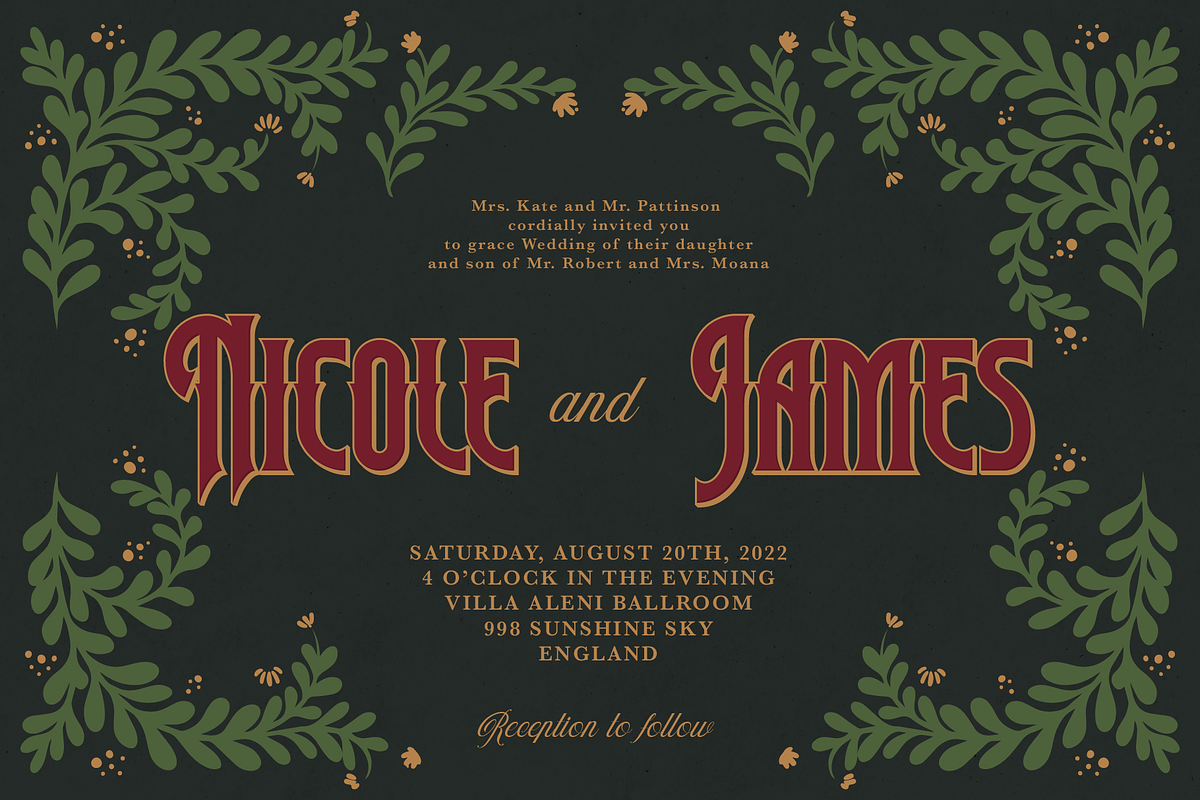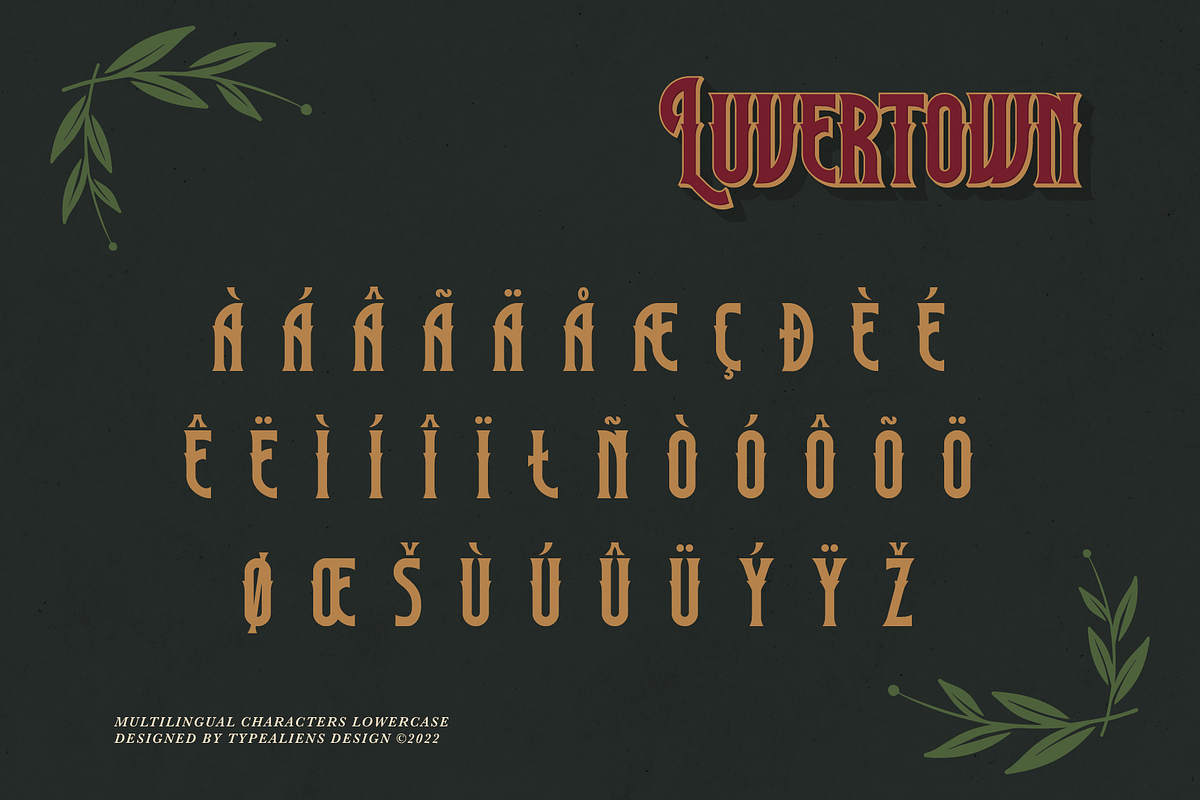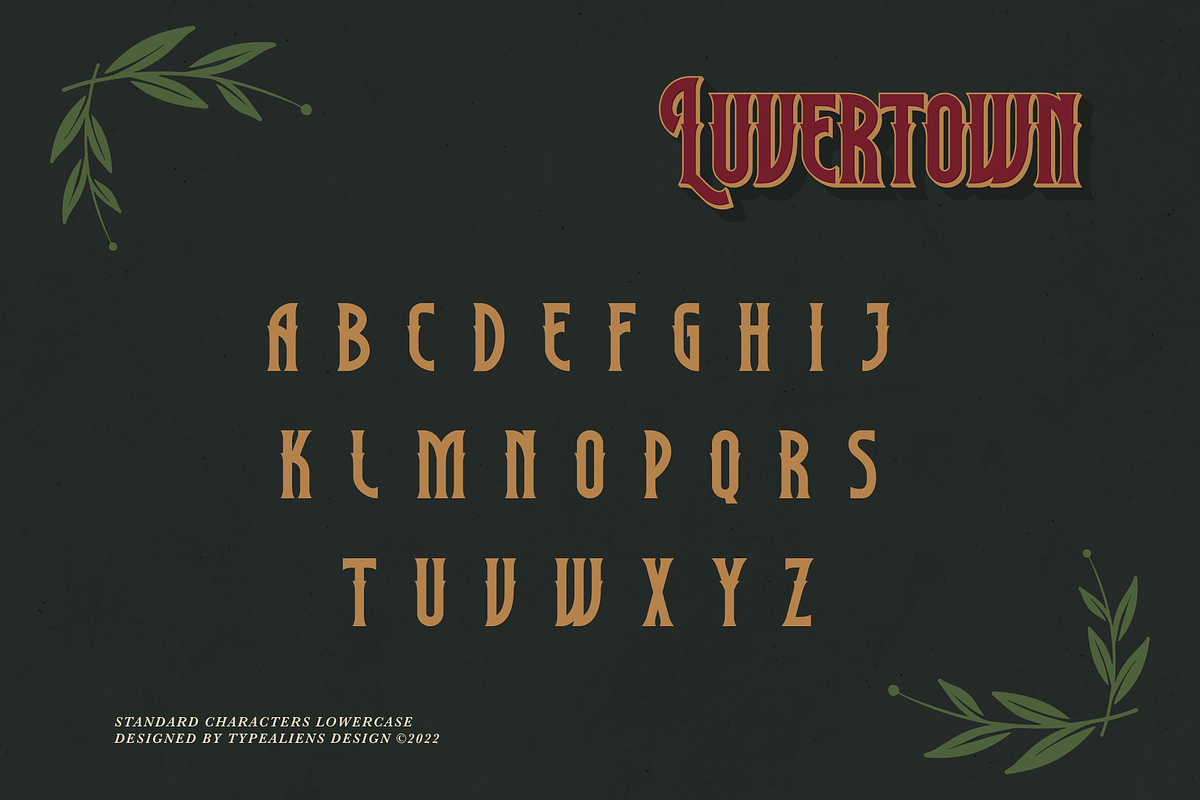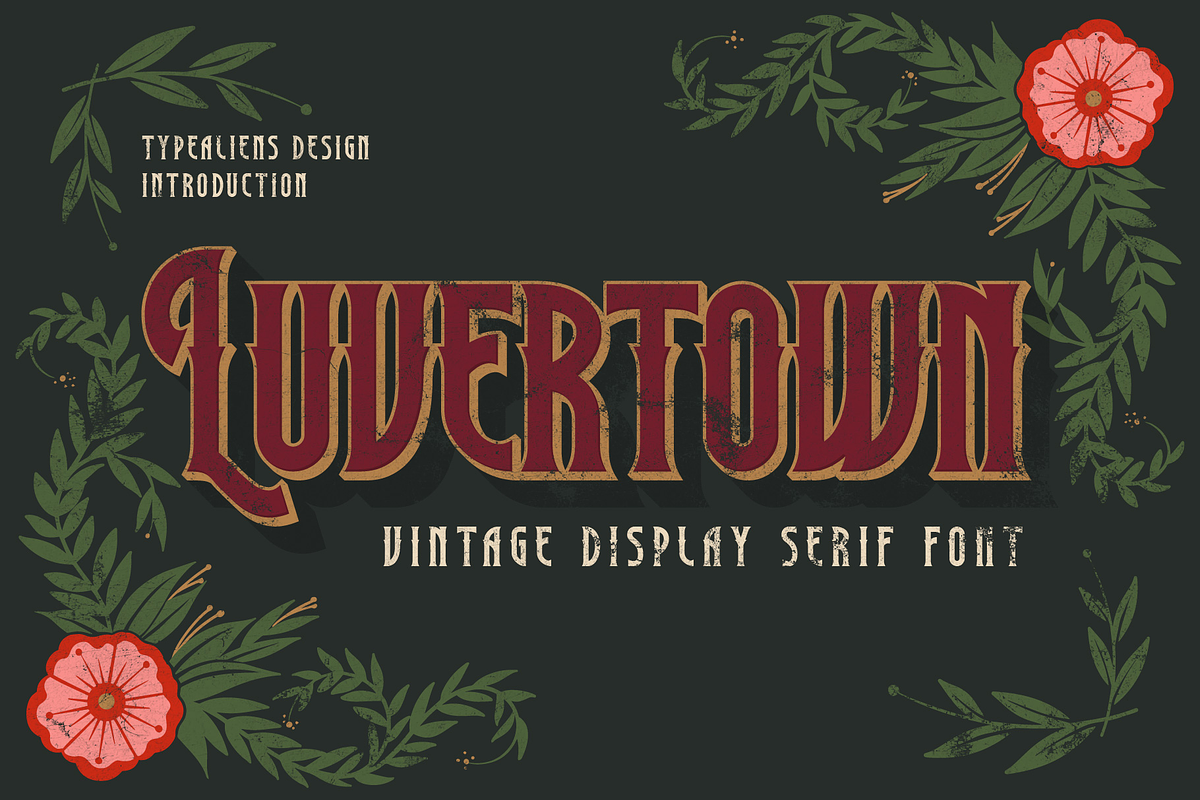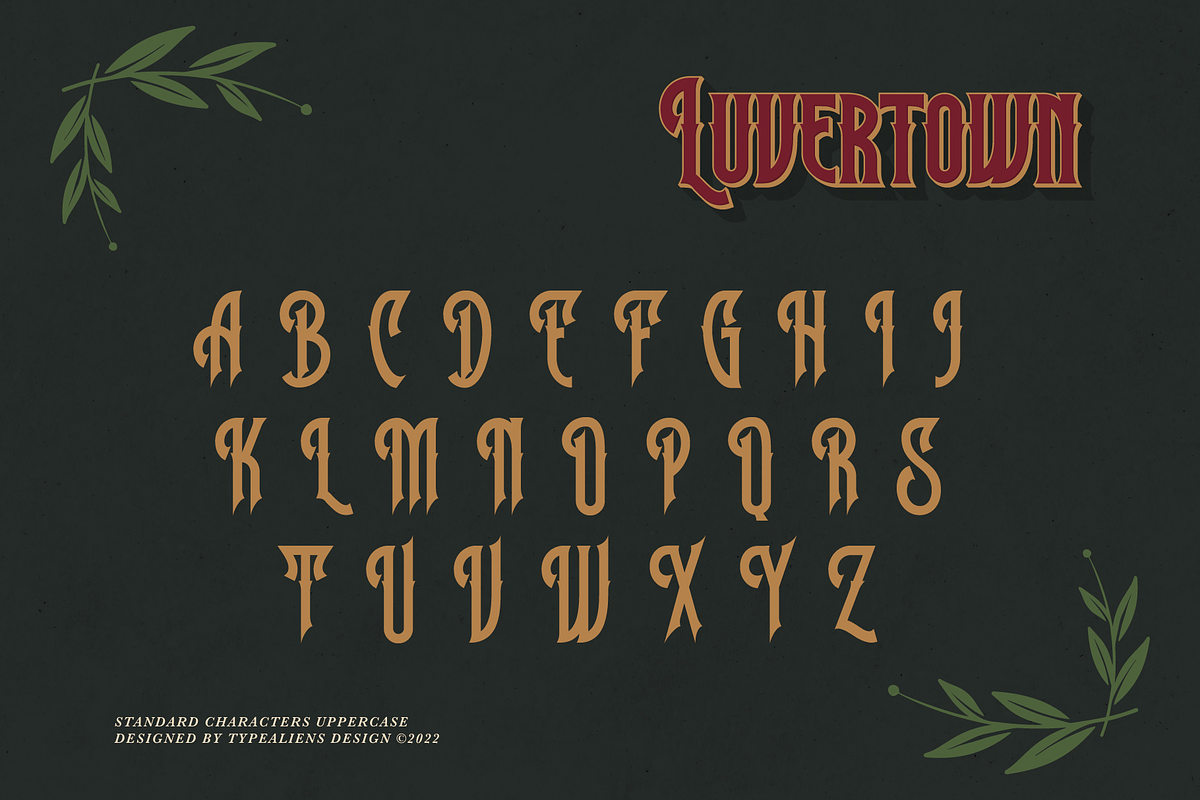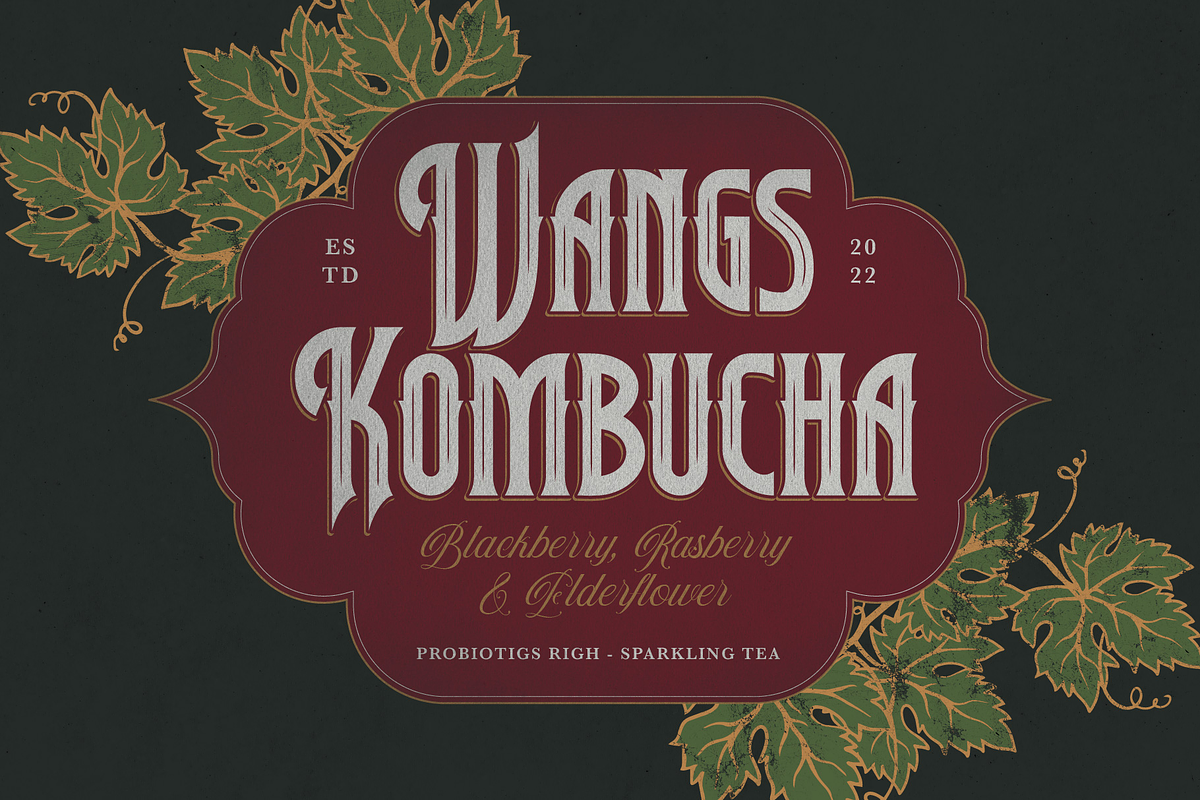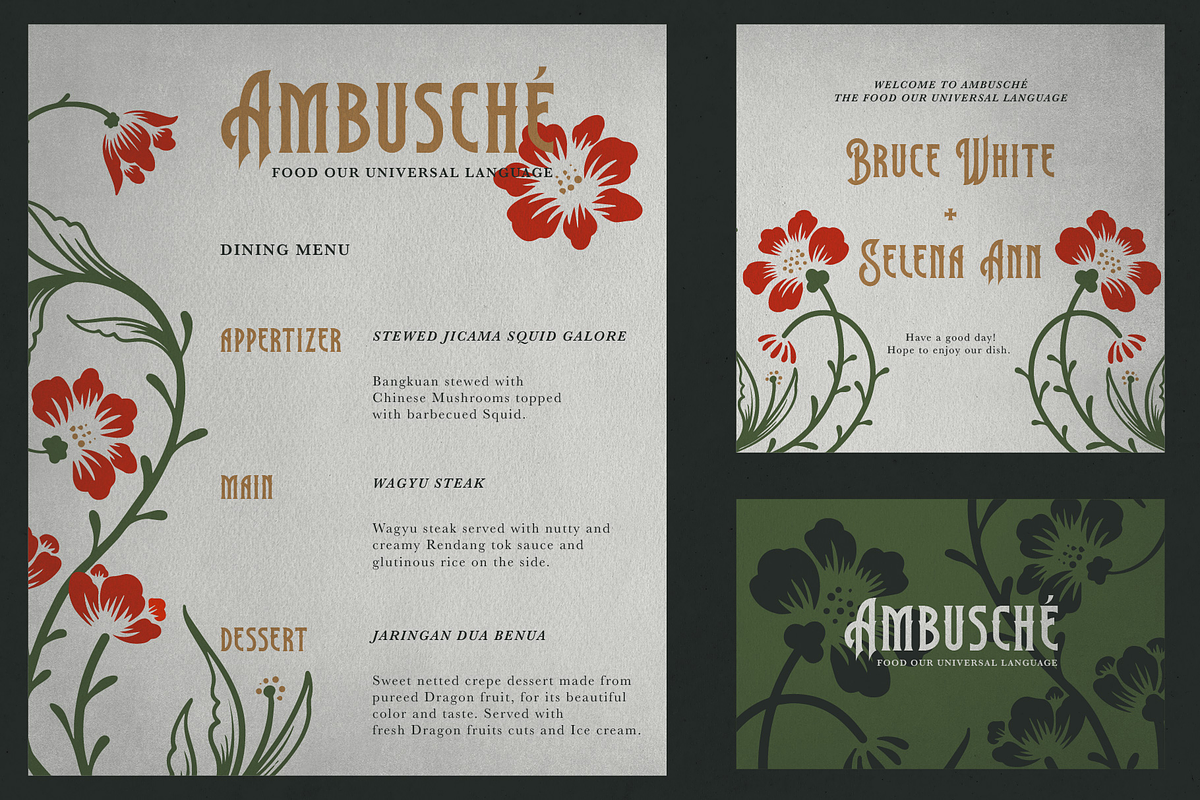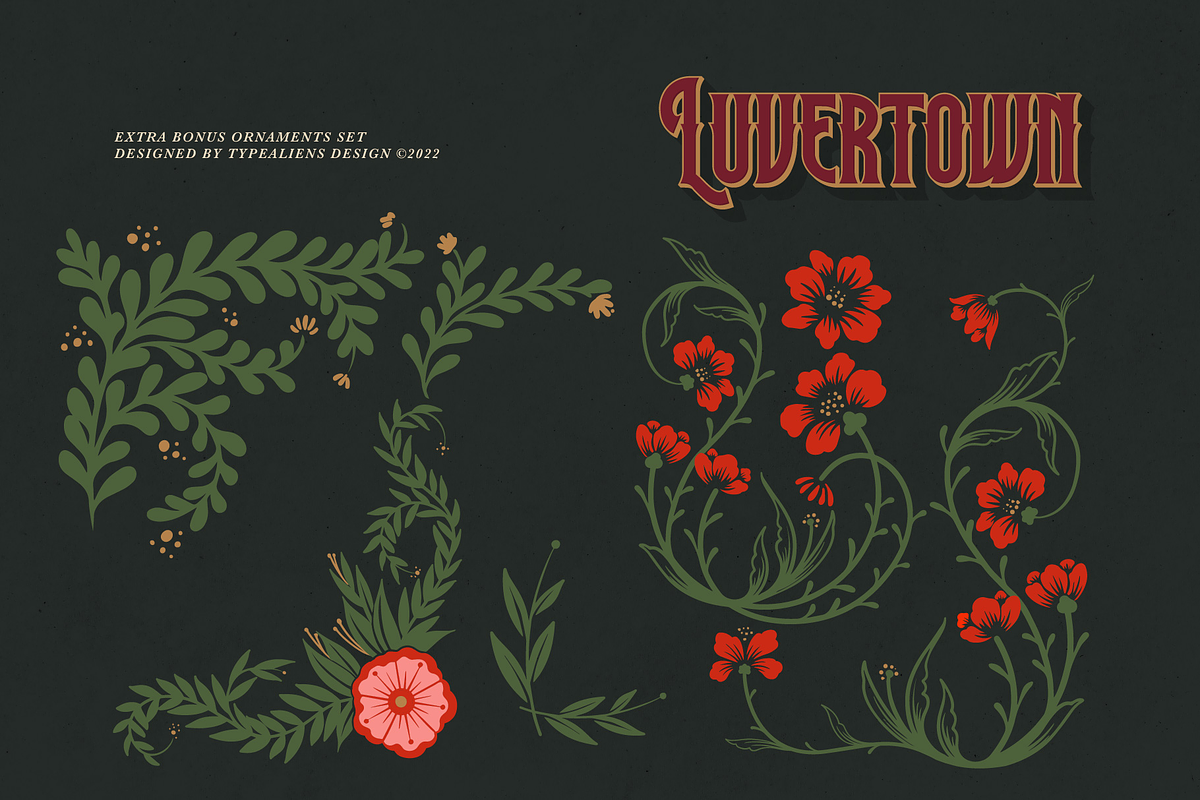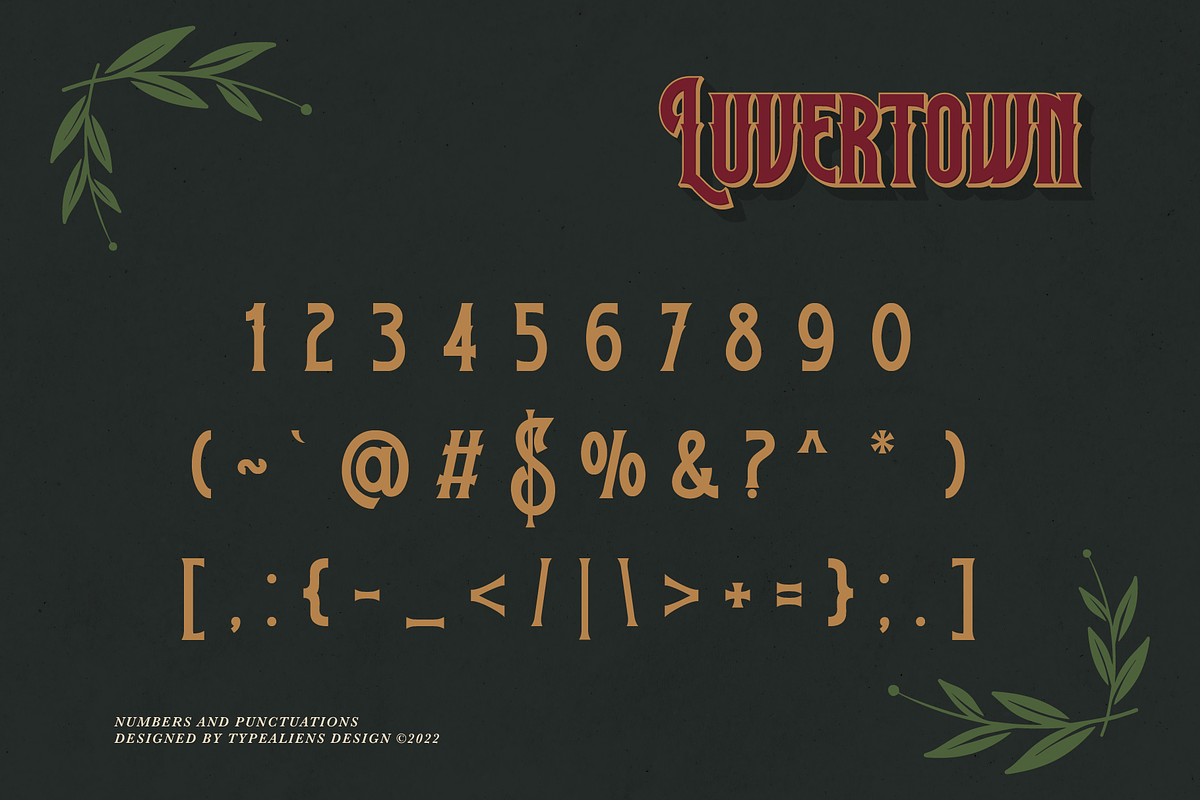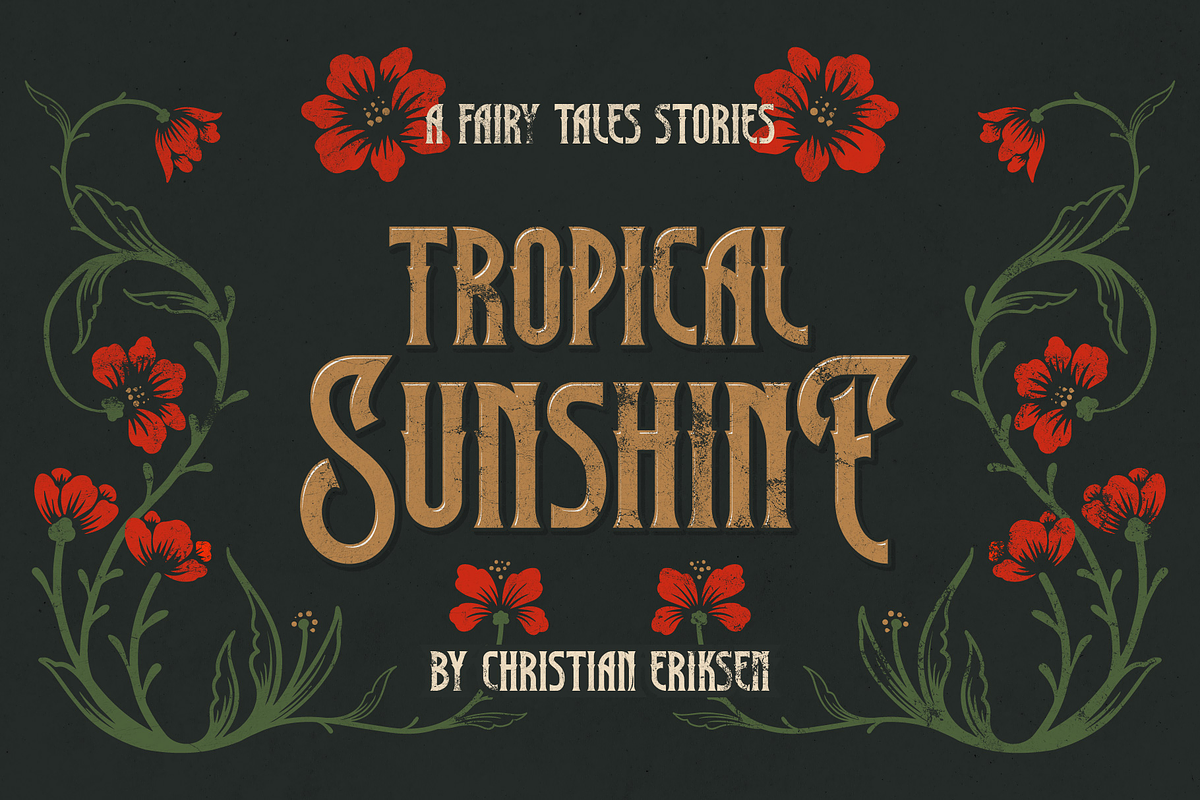
Luvertown
LUVERTOWN
Luvertown is a clean and bold victorian font, the base is from a bold serif font and this font is vintage. Because it is bold, this font seems strong, it will be interesting to make a title or headline using this font. This font is a display font, apart from a bold serif and a clean Victorian, this font has another characteristic, namely there are thorns in the body of this font.